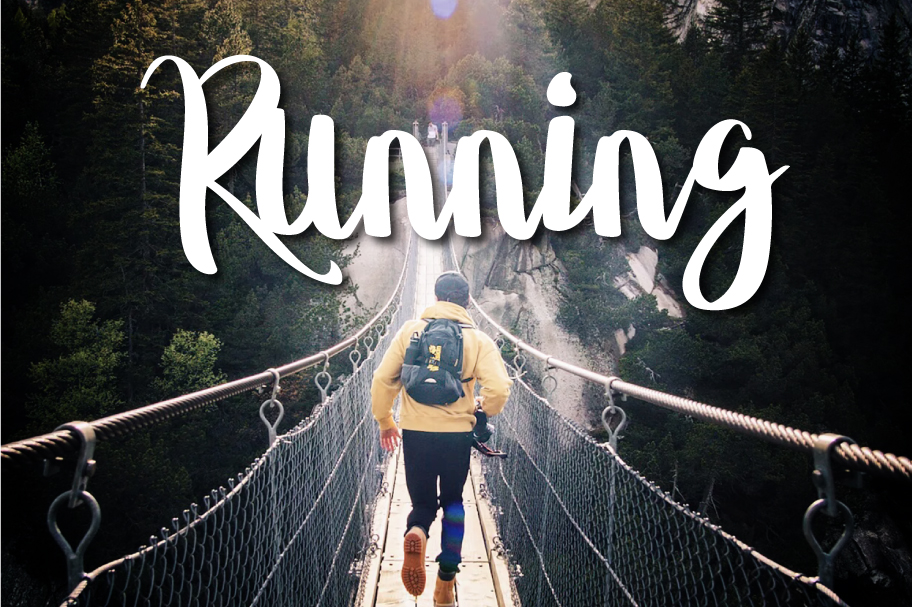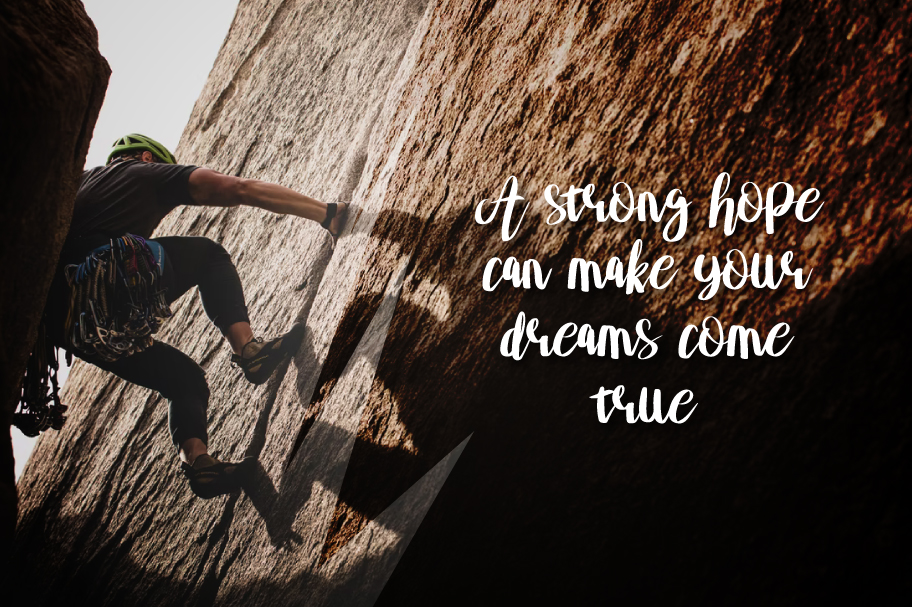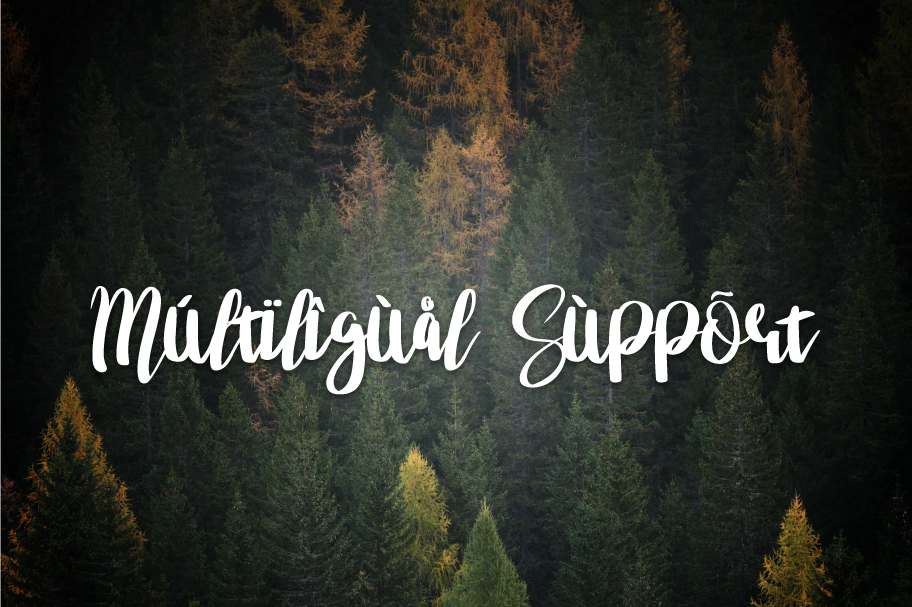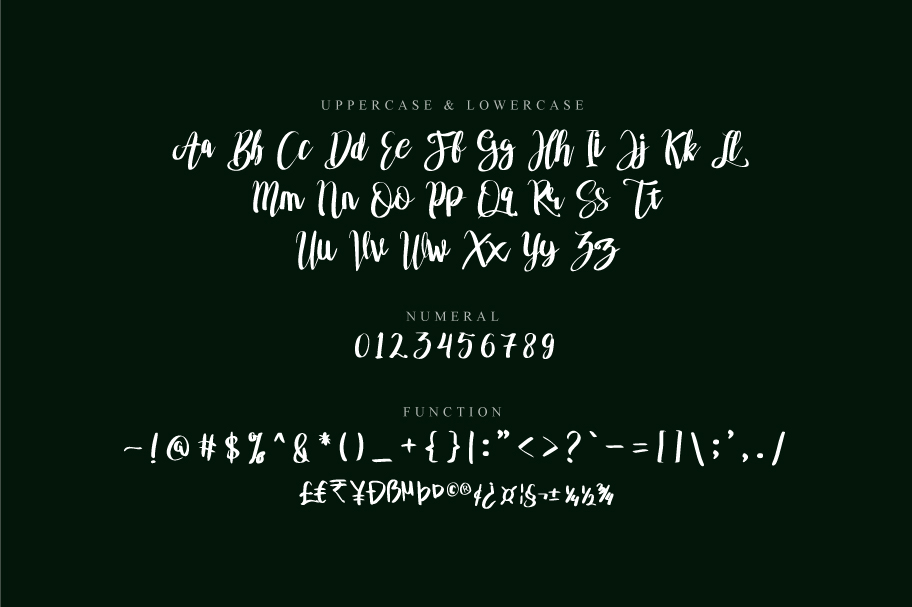
Asgiho Font
Asgiho Script Font
This is a dazzling script font. This font is neatly crafted and highly detailed. Whatever the topic, this font will be a wonderful asset to your font library, as it has the potential to enhance any creation. This font is PUA encoded which means you can access all glyphs and swashes with ease!